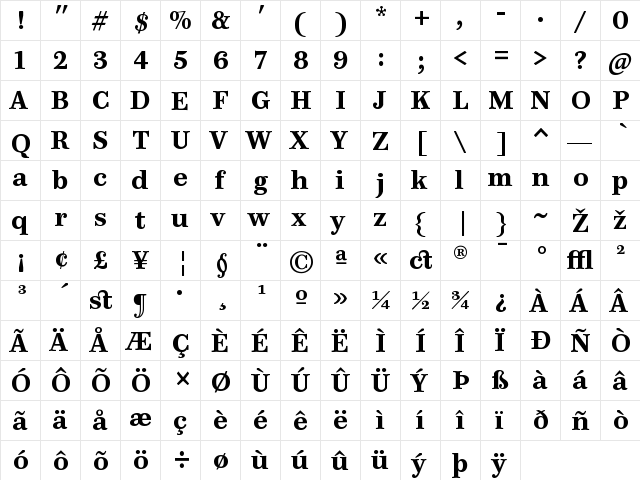
PB9TTP-BoldLF Regular
Design Context for PB9TTP-BoldLF Typeface
PB9TTP-BoldLF is a composed and adaptable typeface that performs quietly and consistently across a wide range of design contexts. Its bold stroke weight gives it real presence on the page.